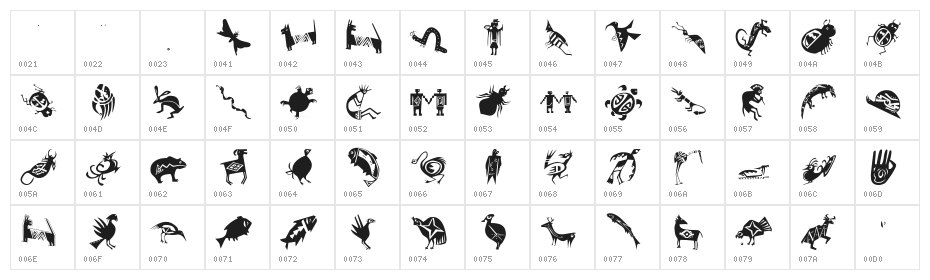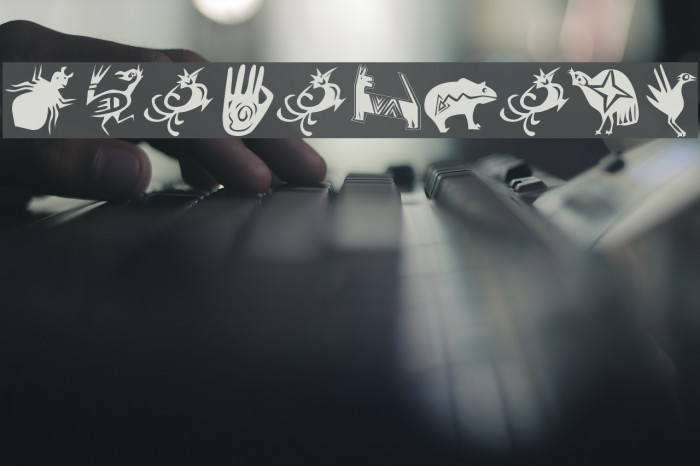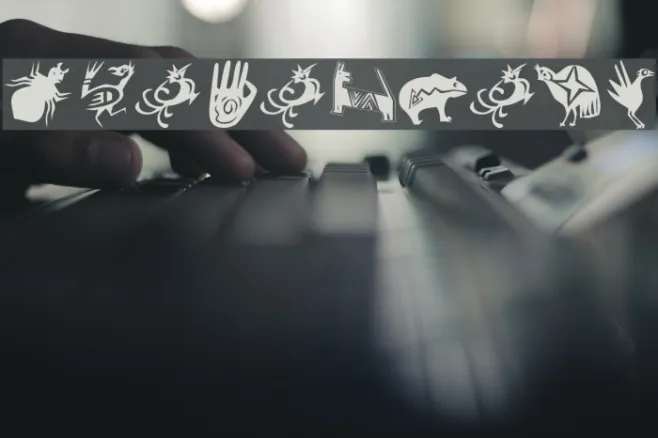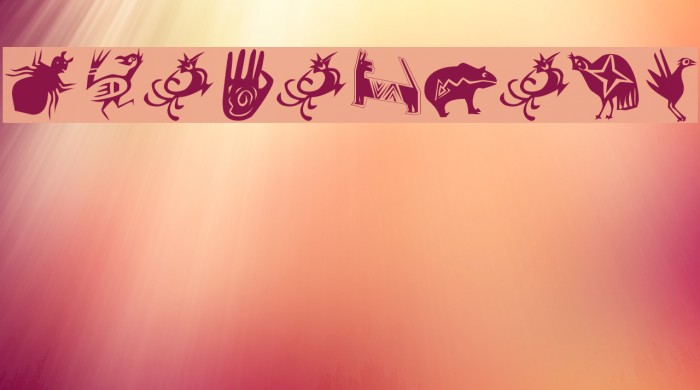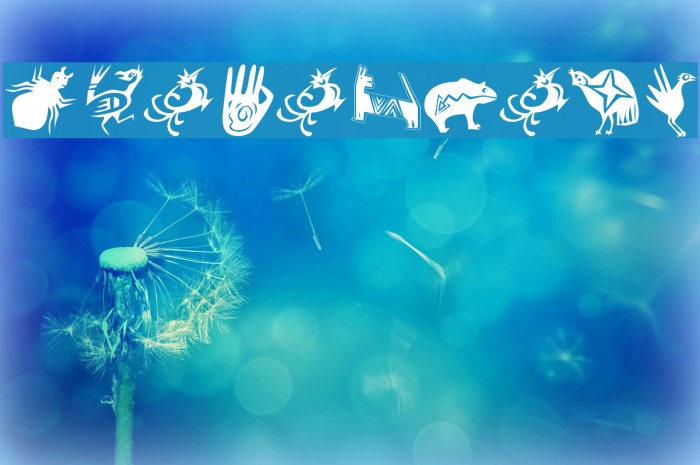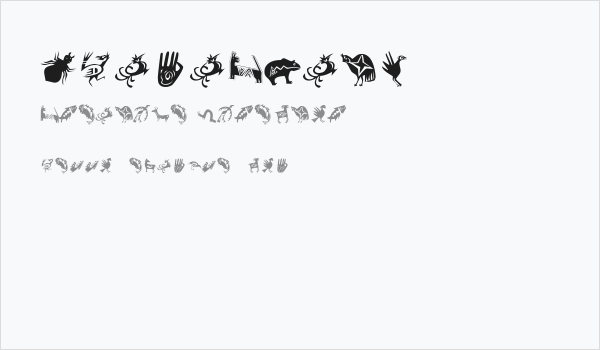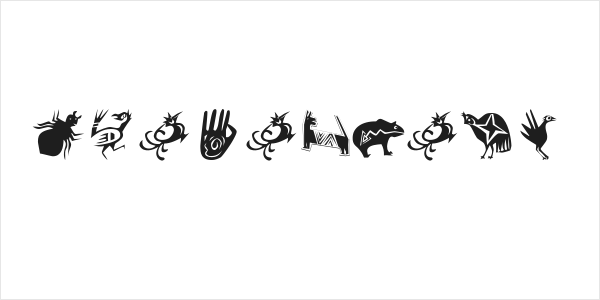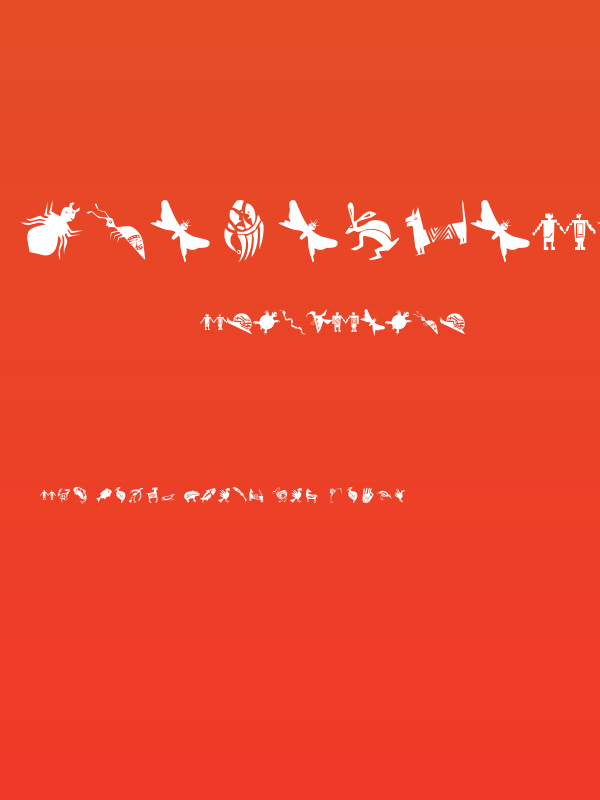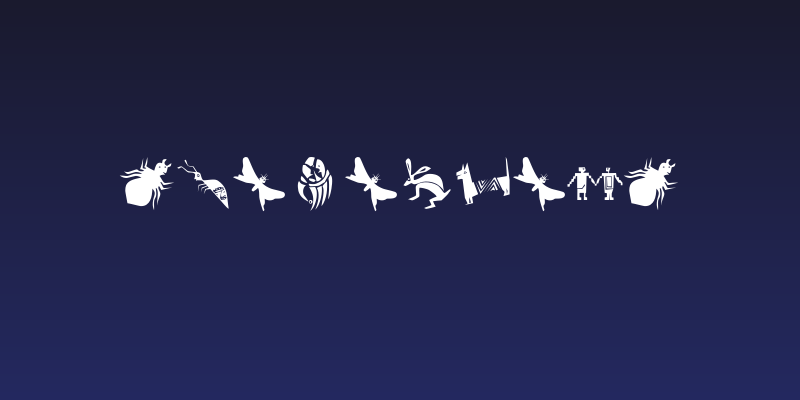
Shamanbats Font
Shamanbats Description
This font is a highly decorative and artistic collection of characters, each designed with intricate and imaginative illustrations. The characters resemble various abstract and mythical creatures, blending elements of nature and fantasy. The design is bold and visually striking, with each letter and symbol crafted to stand out as a unique piece of art. The style is reminiscent of ancient tribal or shamanistic art, with a strong emphasis on organic shapes and dynamic forms. This font is not suitable for traditional text but serves as an artistic expression, perfect for creative projects that require a touch of the extraordinary.
Use CaseLogos, Artistic displays, Posters
Proposed ProjectsIdeal for creative projects such as posters, album covers, fantasy-themed events, or any design work that benefits from a unique and artistic touch.